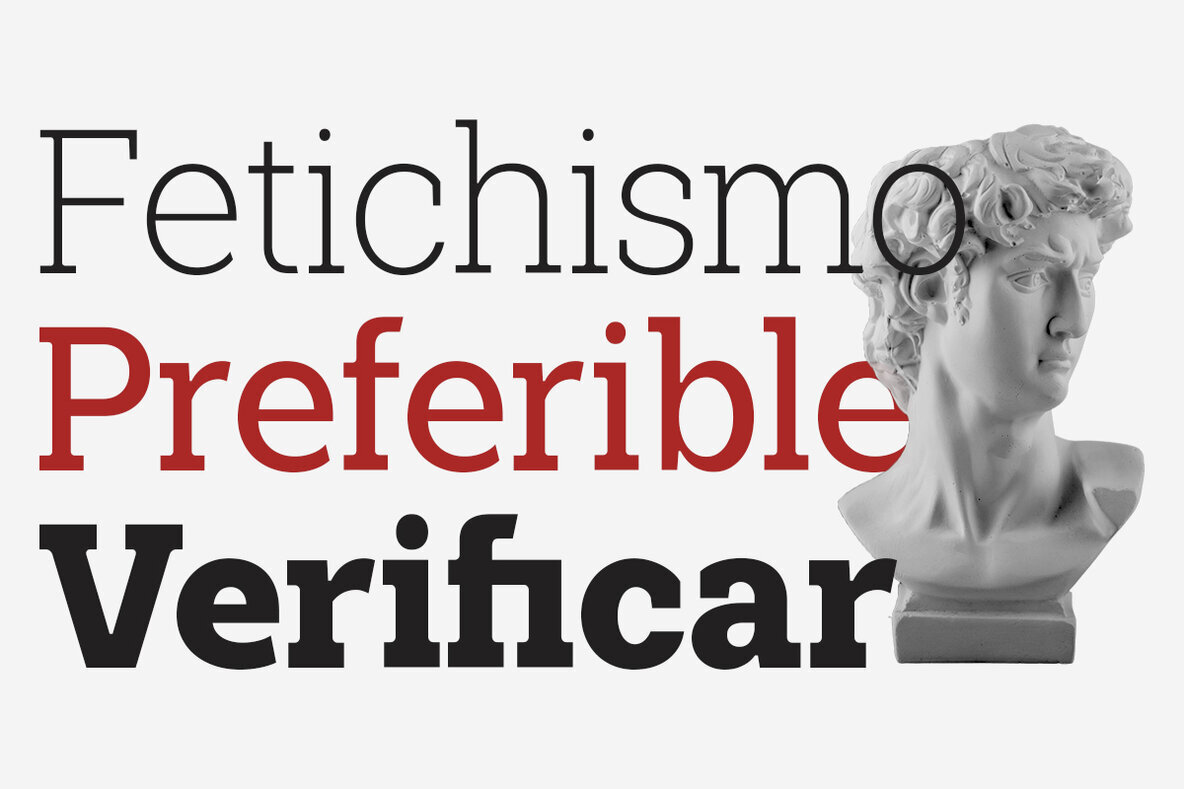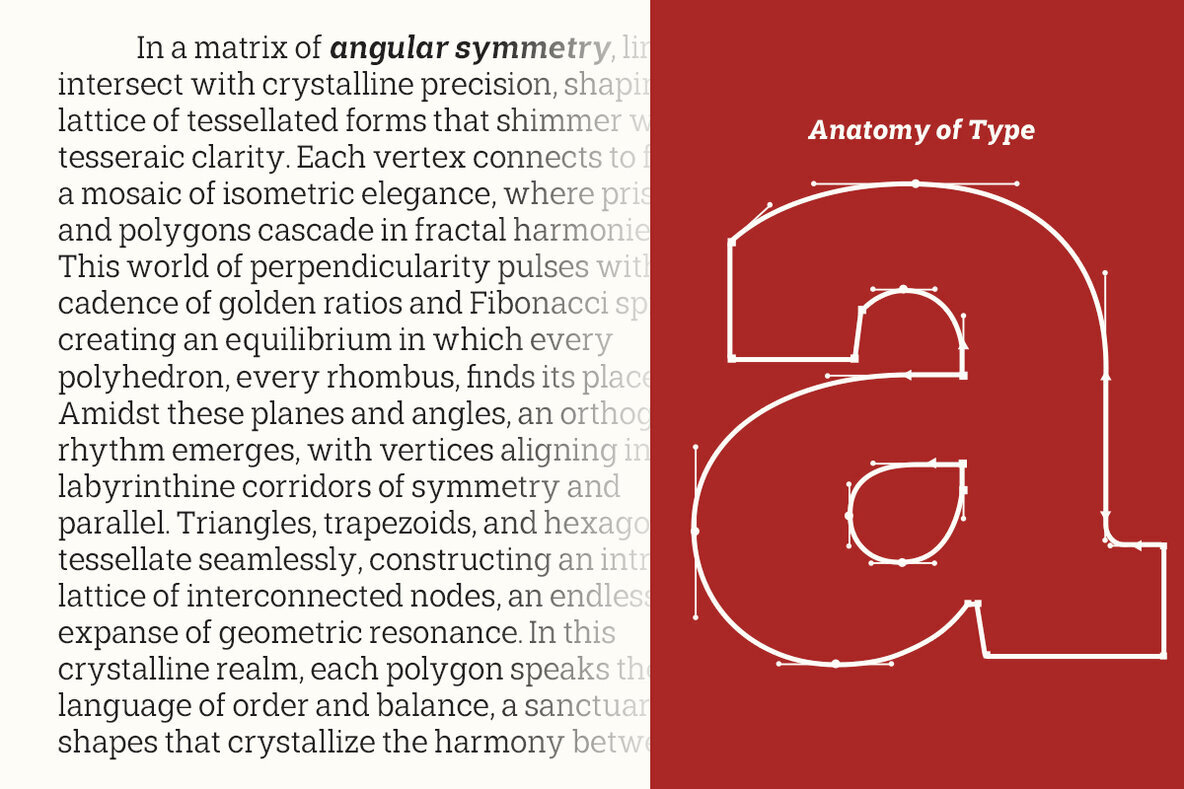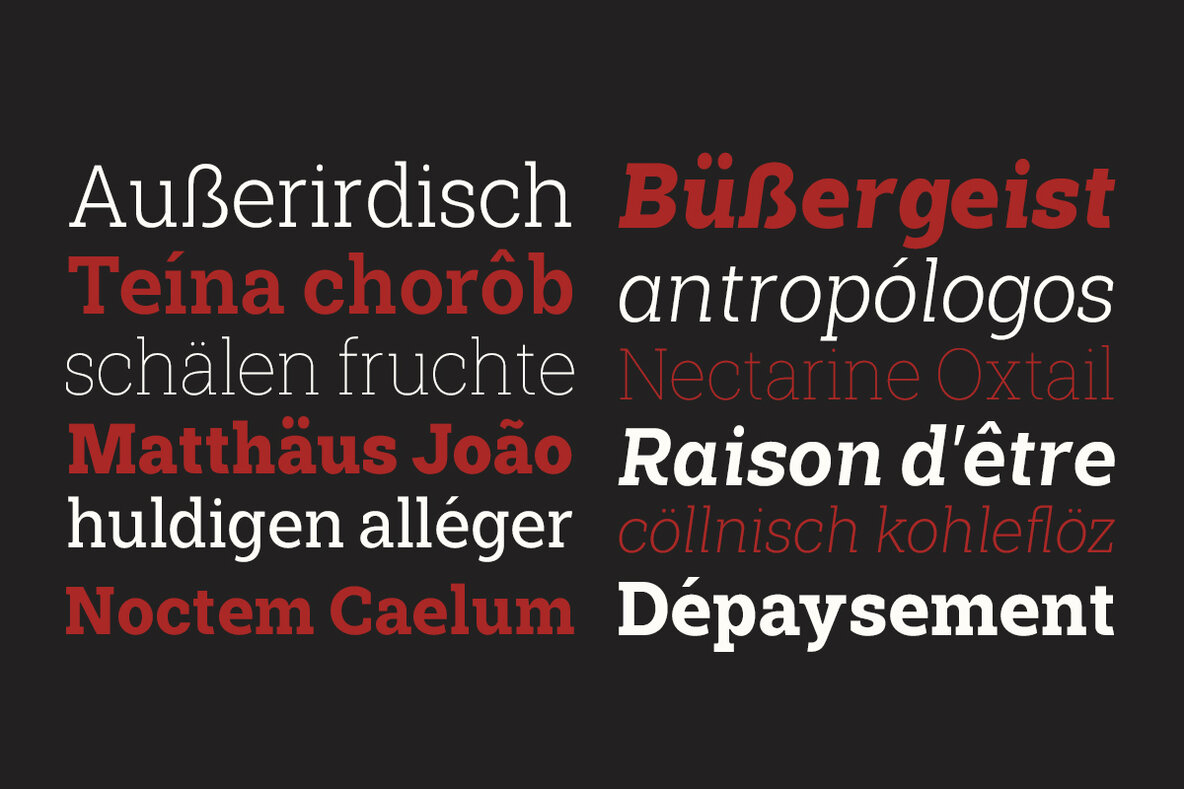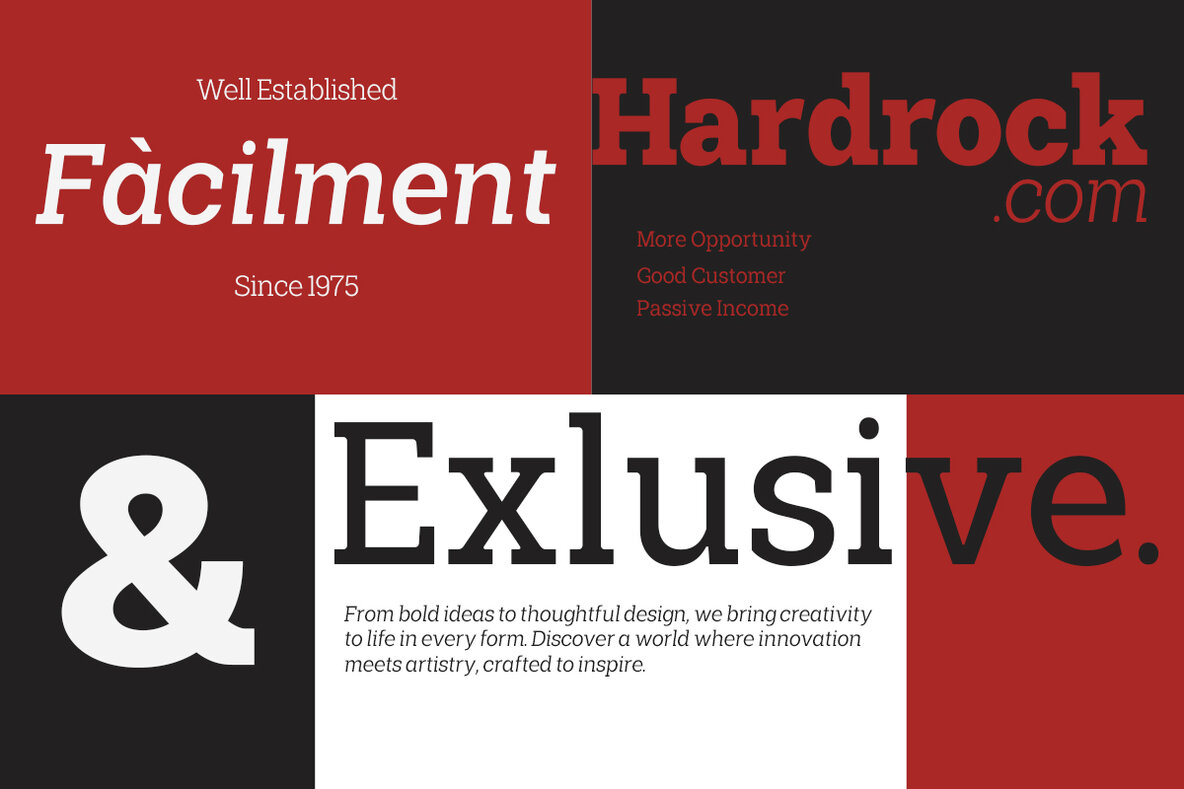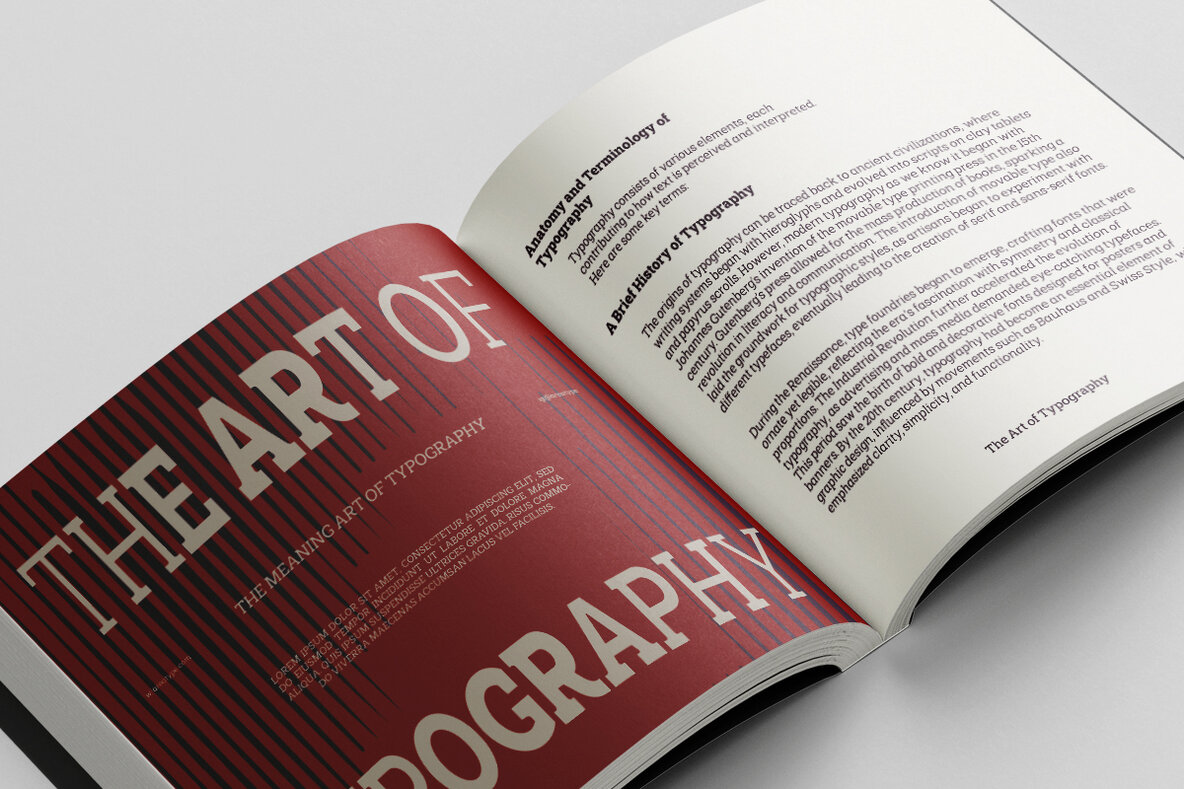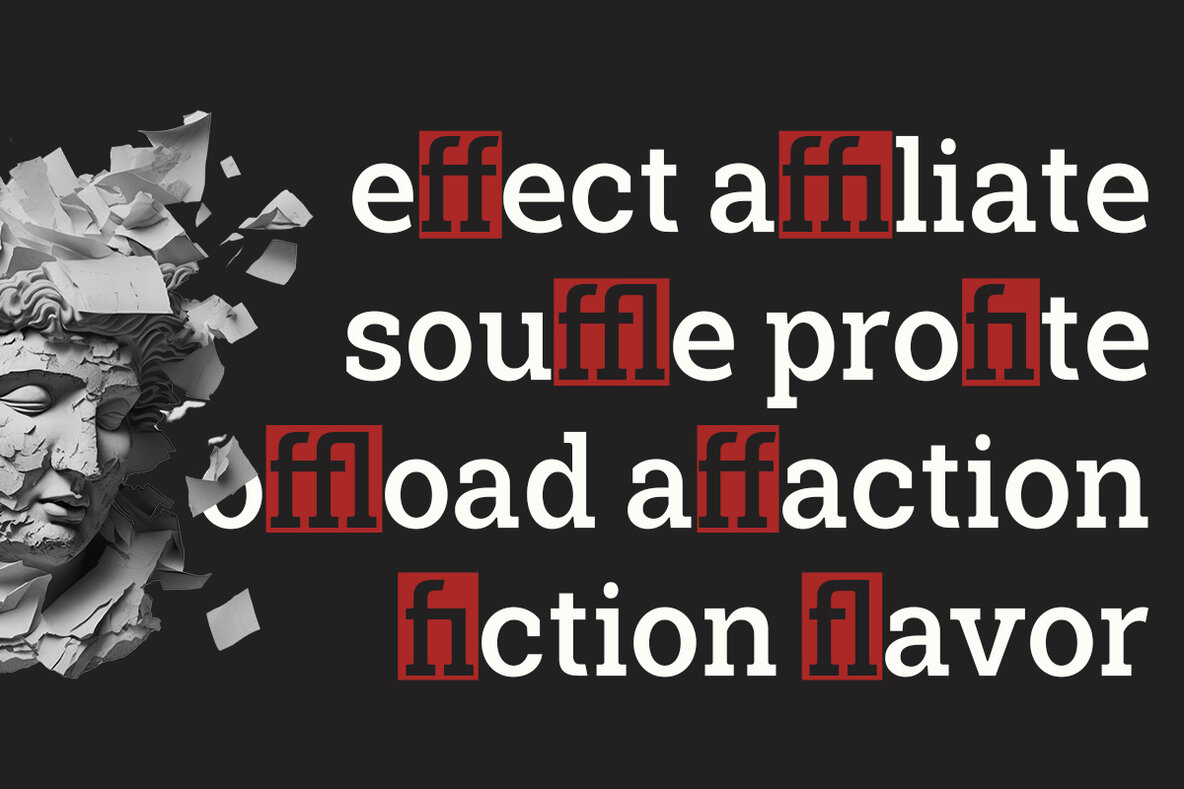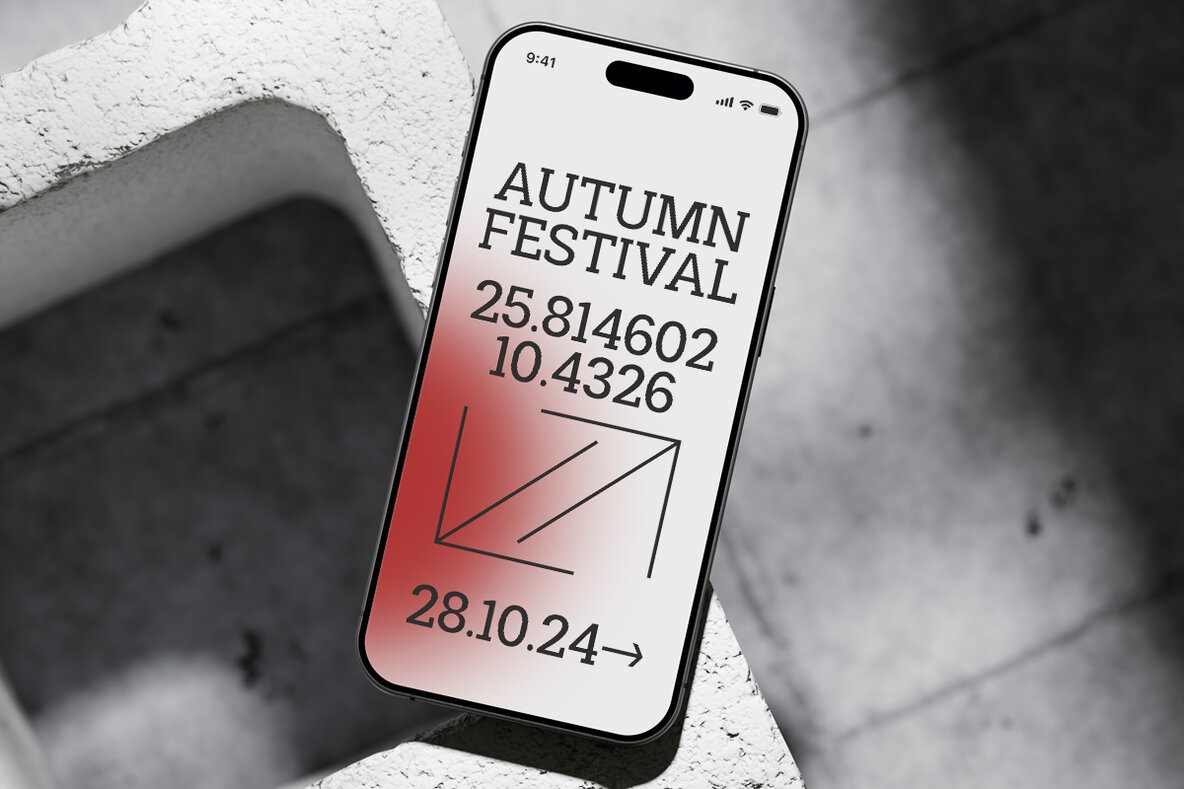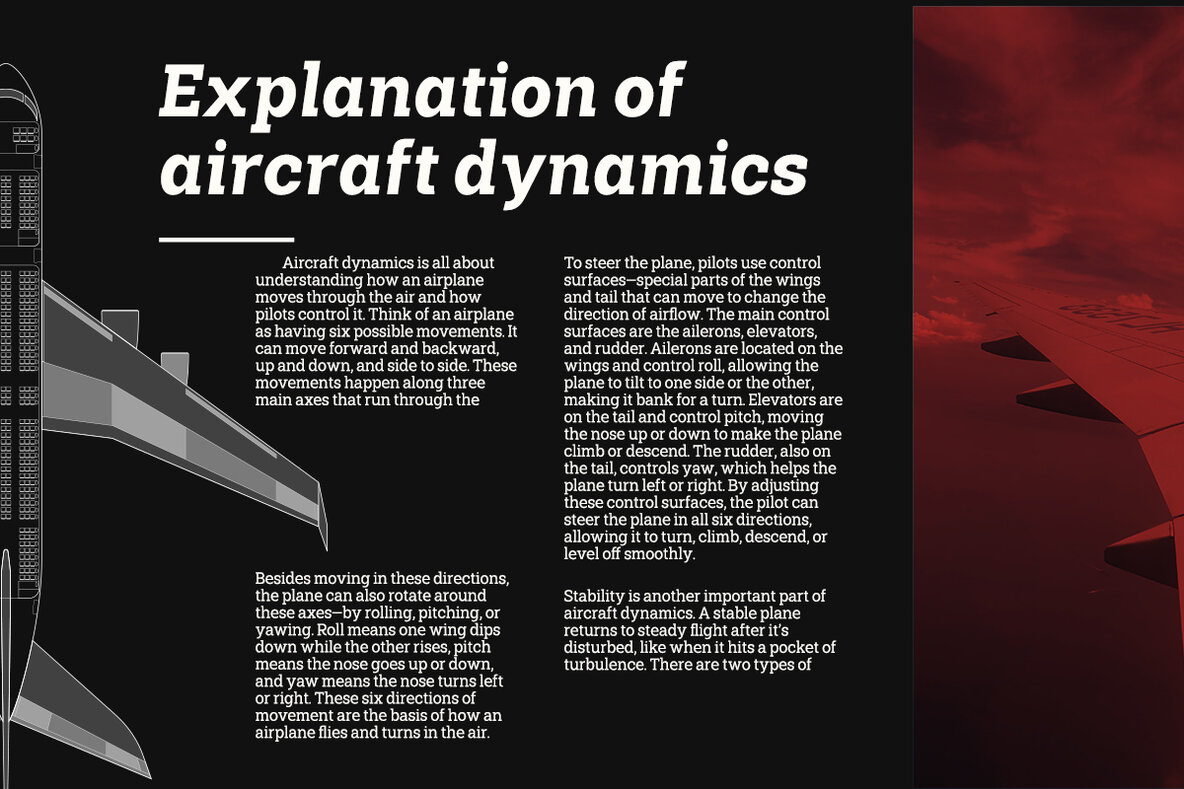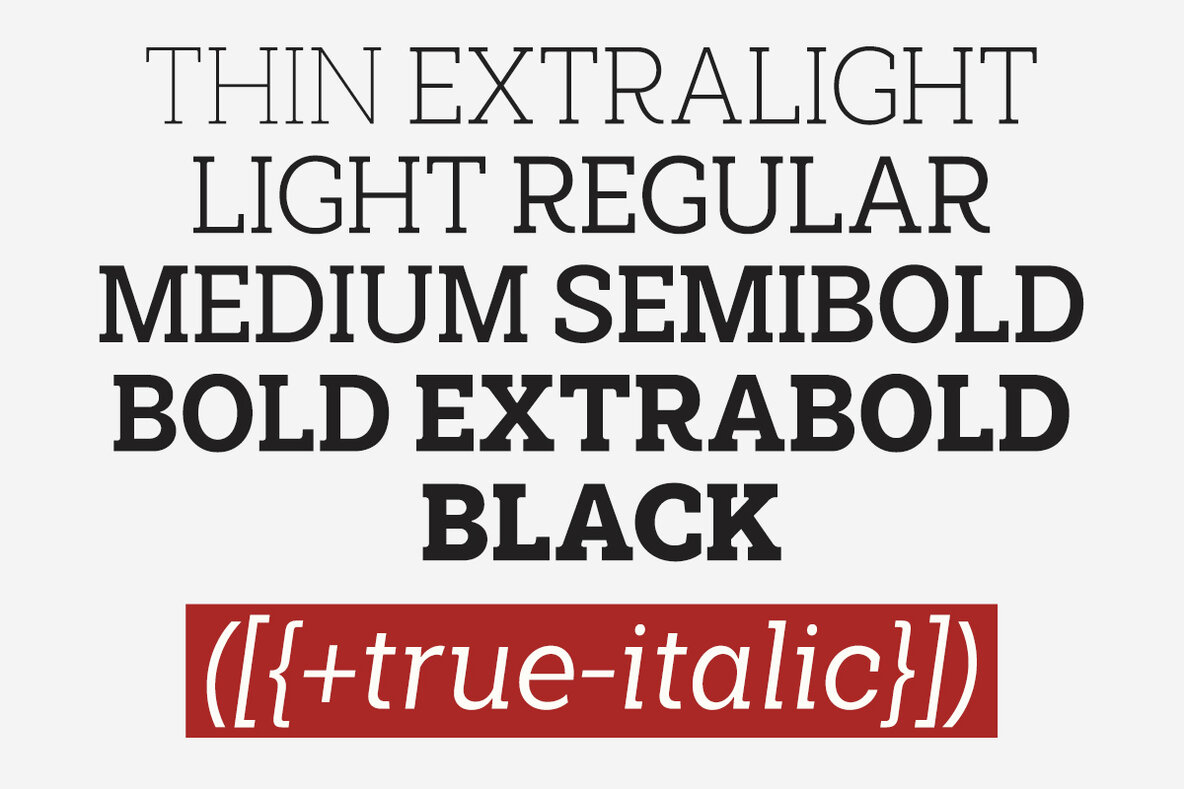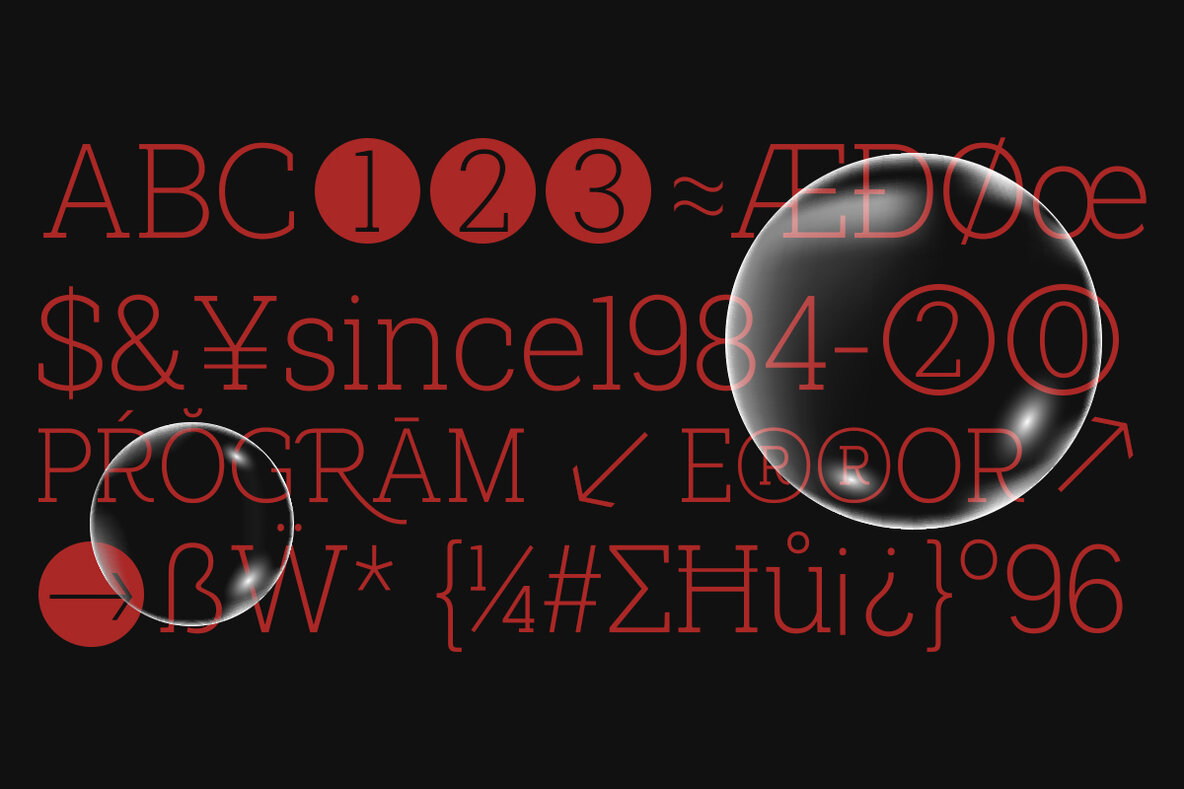
Shemekia Font
Shemekia is a timeless slab-serif typeface designed to bring authenticity to your creative projects. With a broad selection of 18 fonts, it offers a versatile range of styles from light to bold, which includes both upright and italic versions. This combination allows you to seamlessly mix and match fonts to perfectly fit your design needs.
The inclusion of Shemekia italic enhances the typeface's adaptability, offering flexible options for creating visual harmony within your work. Whether you're aiming for a subtle elegance in light weights or a powerful presence in bold, Shemekia delivers a classic aesthetic with a contemporary twist. This makes it an ideal choice for graphic and digital designers seeking to infuse their projects with a unique, yet classic feel.